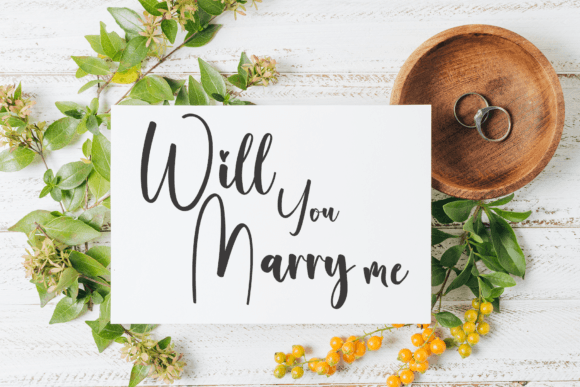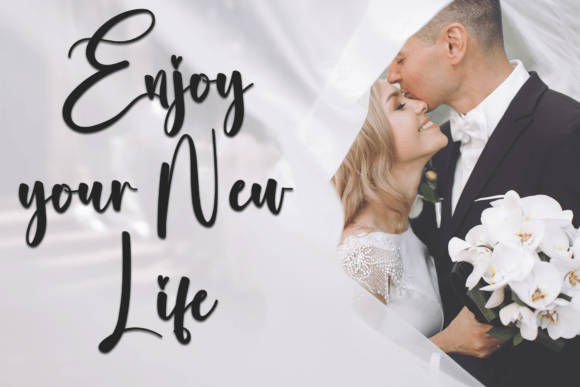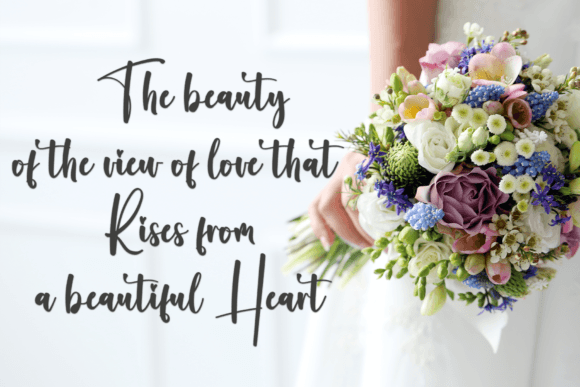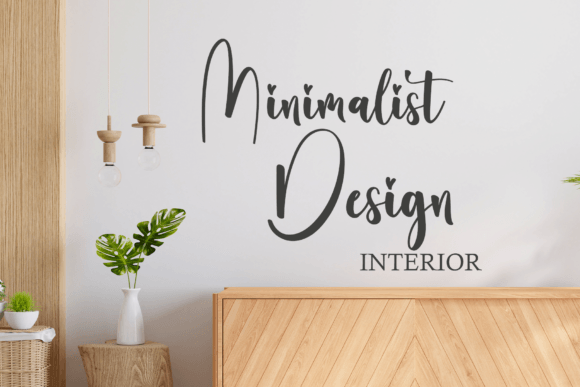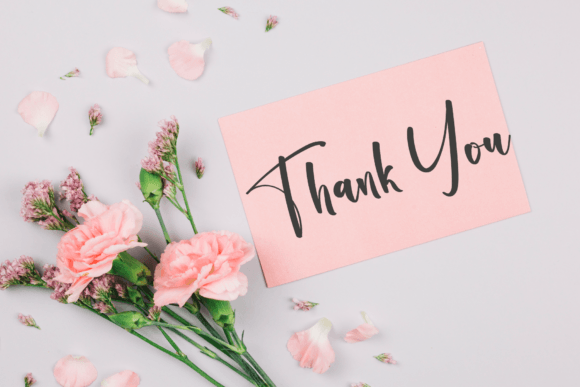
Discover the Elegance of Digital Font: A Timeless Handwritten Style
Are you on the hunt for a font that exudes elegance and sophistication? Look no further than Digital Font, a stunning handwritten font that is sure to capture your heart. With its unique blend of classic charm and modern flair, Digital Font is the perfect choice for designers and crafters looking to add a touch of refinement to their projects.
The Beauty of Digital Font
Digital Font is a neat and beautiful handwritten font that boasts an elegant touch, making it perfect for a wide range of applications. From branding and advertising to packaging and editorial design, this versatile font is sure to make a lasting impression. Its incredibly distinct and timeless style is sure to fall in love with, and its uses are endless.
What Makes Digital Font So Special?
So, what sets Digital Font apart from other fonts on the market? Here are just a few reasons why this font is a cut above the rest:
- Unique Style: Digital Font features a one-of-a-kind design that is both elegant and refined. Its handwritten style gives it a personal touch that is sure to resonate with your audience.
- Timeless Appeal: Unlike trendy fonts that quickly go out of style, Digital Font has a timeless quality that ensures it will remain relevant for years to come.
- Versatility: Whether you’re working on a logo, brochure, or social media graphic, Digital Font is the perfect choice for a wide range of design applications.
- Elegant Touch: The font’s elegant touch adds a level of sophistication to any design, making it perfect for high-end brands and luxury products.
How to Use Digital Font in Your Designs
Now that you’re convinced of the beauty and versatility of Digital Font, let’s explore some ways you can use it in your designs:
- Branding: Use Digital Font as a logo font or in your brand guidelines to create a cohesive and sophisticated visual identity.
- Advertising: Add a touch of elegance to your ad campaigns with Digital Font, perfect for luxury brands, fashion, and lifestyle products.
- Packaging: Make your product stand out on store shelves with Digital Font, ideal for high-end packaging and label design.
- Editorial Design: Use Digital Font in your editorial designs, such as magazines, newspapers, and blogs, to add a level of sophistication and refinement.
Tips for Getting the Most Out of Digital Font
To ensure you get the most out of Digital Font, here are some tips to keep in mind:
- Pair it with Other Fonts: Experiment with pairing Digital Font with other fonts to create a unique and visually appealing combination.
- Use it in Headlines: Digital Font is perfect for headlines and titles, where its elegant touch can really shine.
- Experiment with Colors: Try out different colors and textures to add depth and interest to your designs featuring Digital Font.
In conclusion, Digital Font is a stunning handwritten font that is sure to capture your heart. With its unique style, timeless appeal, and versatility, it’s the perfect choice for designers and crafters looking to add a touch of elegance to their projects. Whether you’re working on branding, advertising, packaging, or editorial design, Digital Font is sure to make a lasting impression. So why wait? Fall in love with Digital Font today and create spectacular designs that will leave a lasting impression!